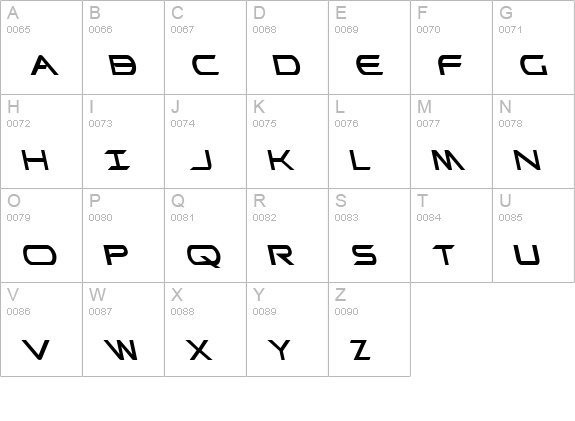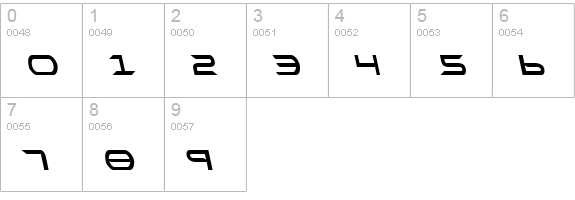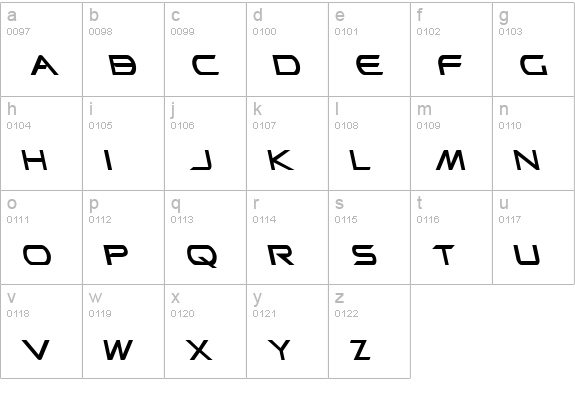
Promethean Leftalic font is a striking and modern typeface that exudes creativity and sophistication. With its sleek and elegant design, this font is perfect for adding a touch of flair to any project or design. The slanted letterforms of Promethean Leftalic give a sense of movement and dynamism, making it an ideal choice for conveying energy and innovation. What sets Promethean Leftalic apart is not only its exceptional style but also its accessibility. This font is freely available to download at FontsMarket.com, allowing designers and creatives to easily incorporate it into their work without any cost. Whether you're working on a branding project, a logo design, or any other creative endeavor, Promethean Leftalic is sure to make a lasting impression with its unique aesthetic and versatility. Don't miss out on the opportunity to elevate your designs with Promethean Leftalic. Download this exceptional font for free today and unleash your creativity like never before!